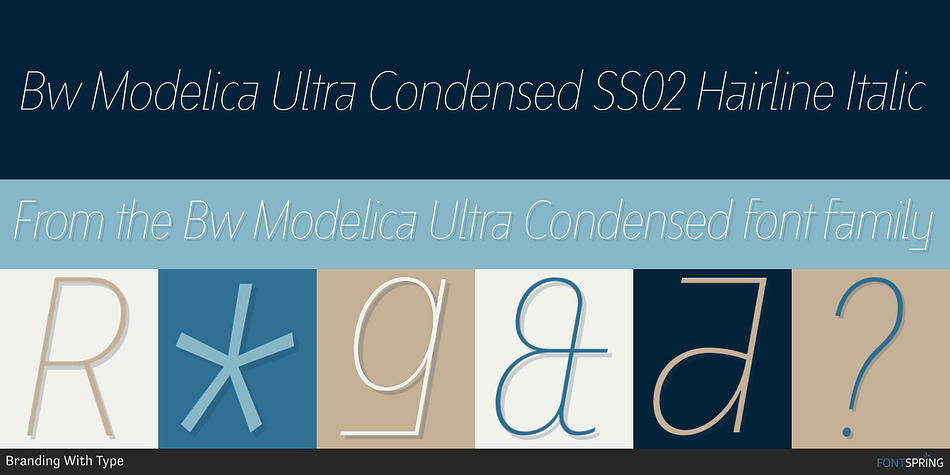
Designed by Alberto Romanos, Bw Modelica Ultra Condensed is a sans serif font family. This typeface has forty-eight styles and was published by Branding With Type.
Bw Modelica Ultra Condensed SS02 Hairline Italic
Designed by Alberto Romanos, Bw Modelica is a minimal, robust, reliable & pragmatic geometric sans. Its clean shapes and generous x-height makes it a very competent face for both, display and body copy purposes.
It’s available in four widths, each containing eight weights with matching oblique italics (that’s 64 styles in total). The main font files include two stylistic sets allowing for more expressive options, specially for display use.
SS01 and SS02 are also available as stand-alone font files, for those who would prefer to use them directly without activating the OpenType feature.
Bw Modelica is available in three additional widths:
Bw Modelica Condensed
Bw Modelica Regular Width
Bw Modelica Expanded